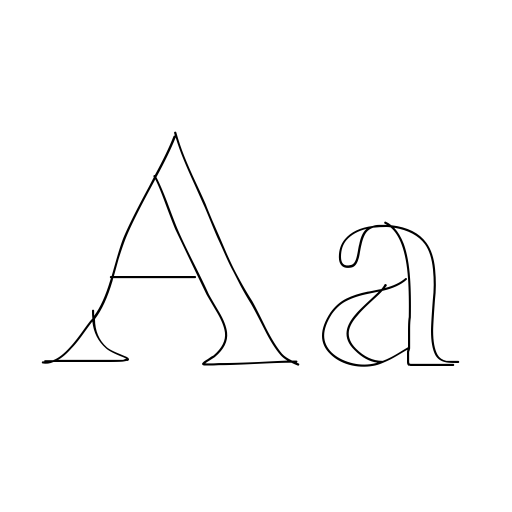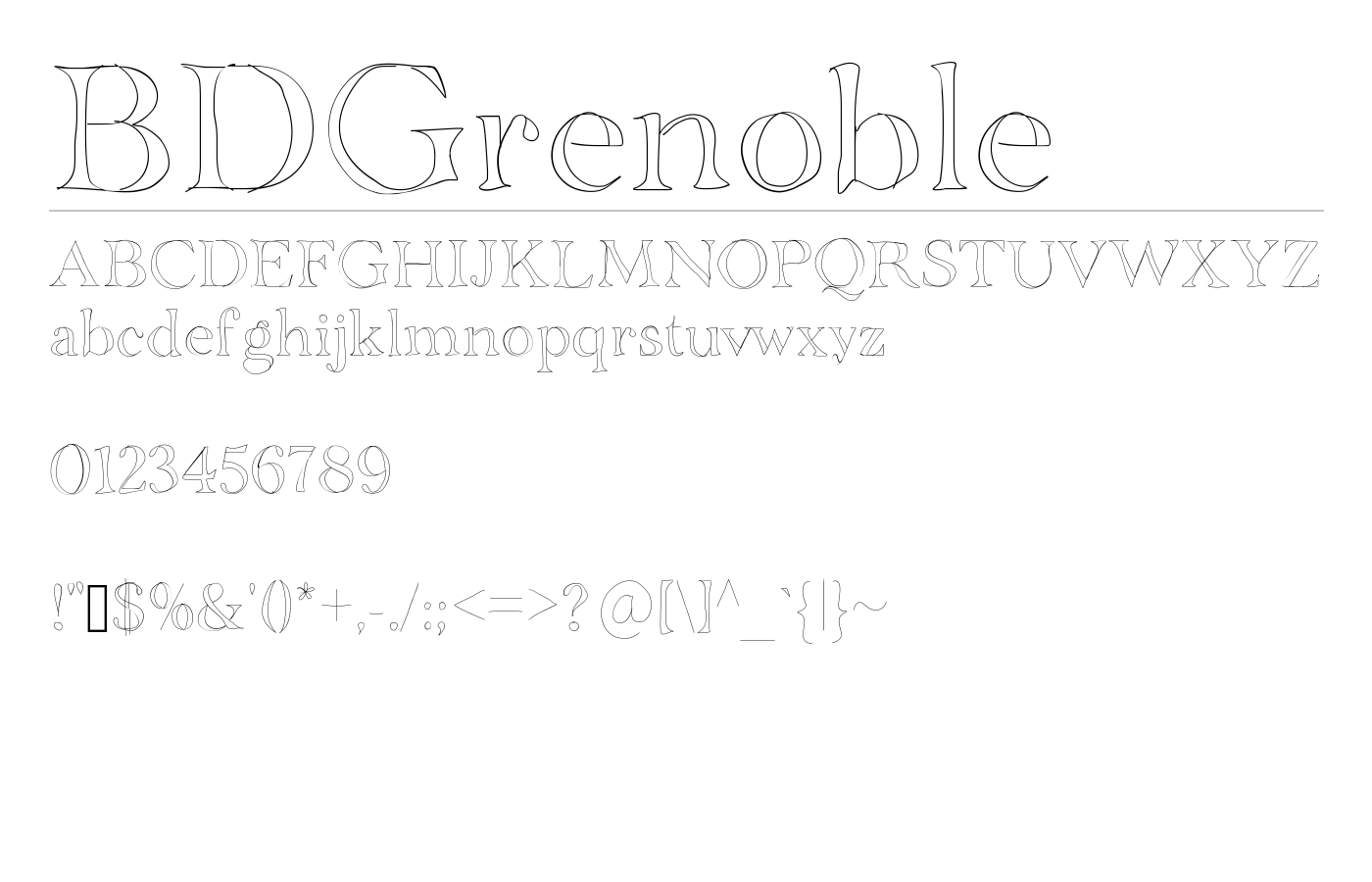
BDGrenoble is a delicate serif font with a light weight and elegant, thin strokes that create a refined, almost hand-drawn feel. Its tall, narrow letterforms feature subtle contrasts and unique serifs that give it a vintage yet sophisticated personality, making it ideal for luxury branding, editorial use, and stylish headlines. This font works best where a touch of classic elegance and distinctive charm is desired, especially in designs that need a graceful, artistic look.
BDGrenoble Font
About BDGrenoble Font